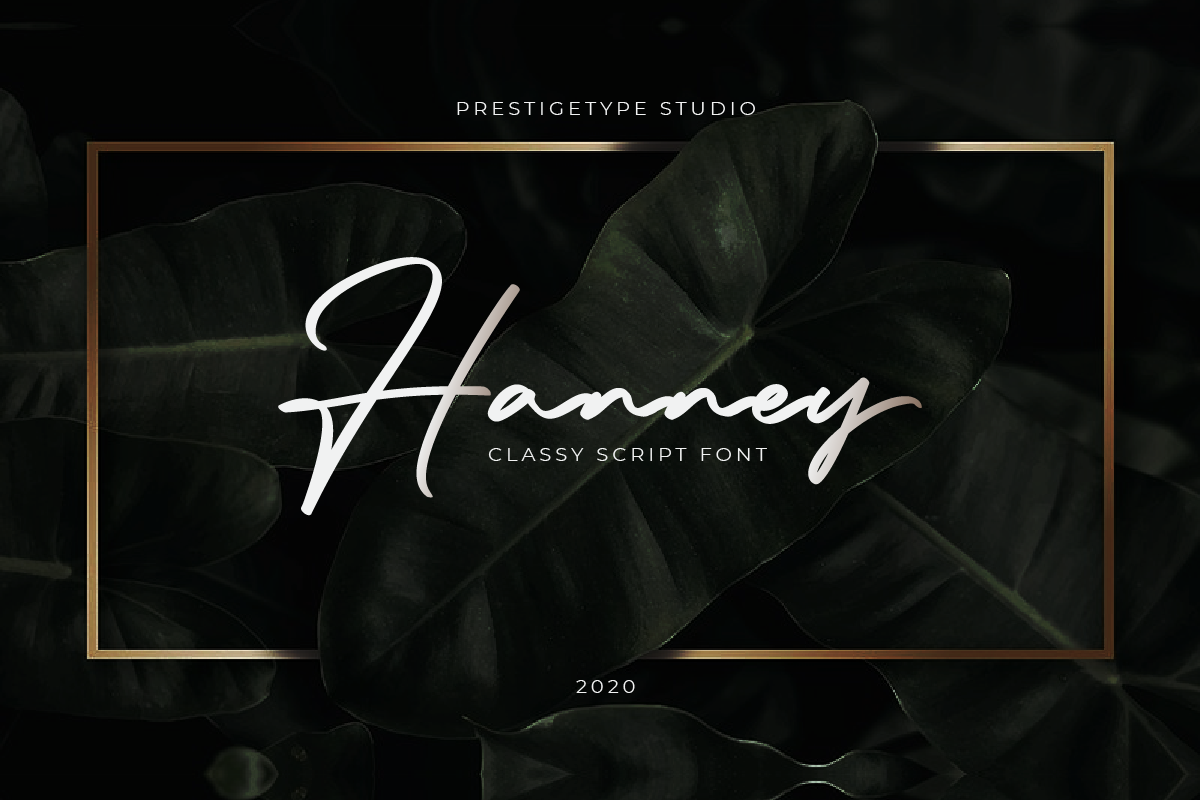
Hanney - Classy Script Font
The signature styles are the best representation of classy and professional visual identity, hence choosing the right signature font is necessary when you come to build a professional visual brand identity. Introducing Hanney, with elegant and unique curves, this font can represent the classy and professional personality of your brand's visual identity. Hanney perfect used for branding purposes such as logo, business card, photography, headlines, titles, labels, fashion industry, social media, product packaging, and any advertising purposes.